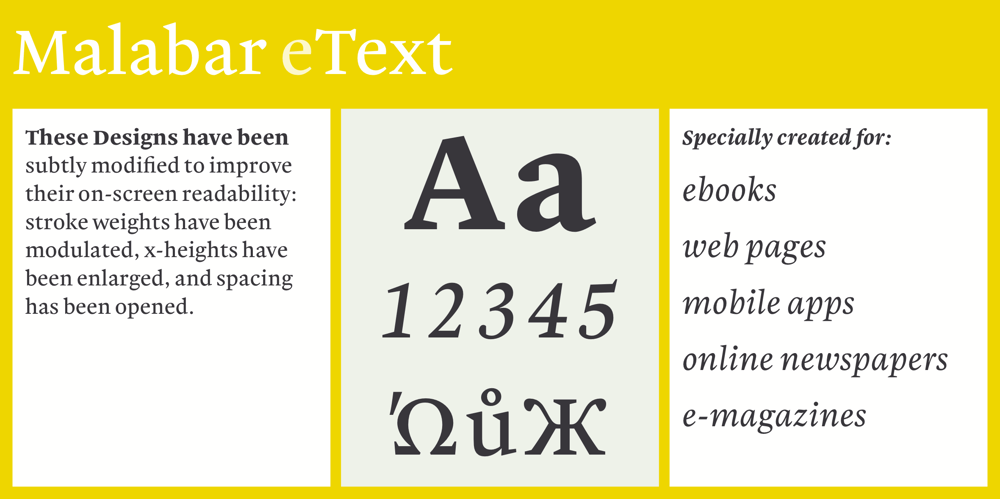
Malabar eText Font Family was designed by Dan Reynolds and published by Linotype. Malabar eText contains 4 styles and family package options. A clear and enjoyable reading experience hinges on the legibility of text copy, especially when reading on screen. This is why Monotype has developed the eText collection of fonts specifically tailored for the text-heavy display environments of e-readers, tablets, mobile devices, and the Web. The original Malabar was designed by Dan Reynolds.